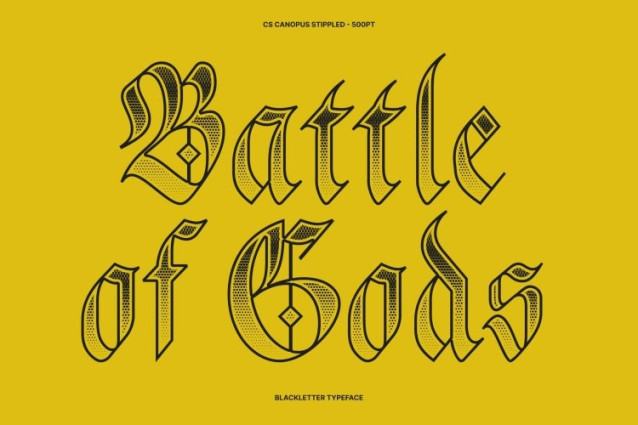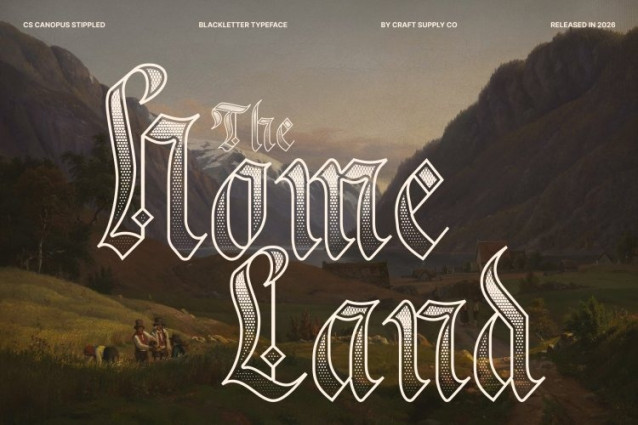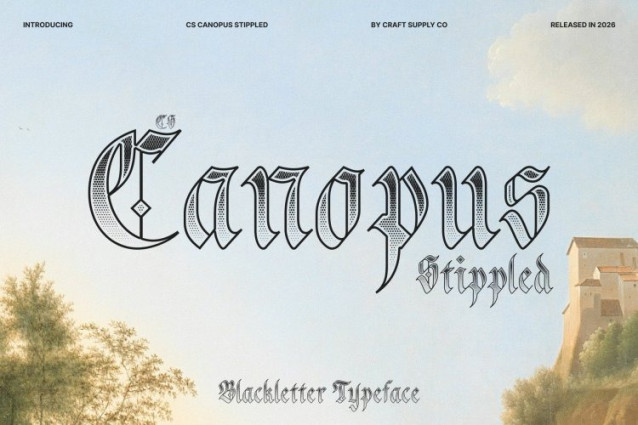
CS Canopus Stippled Font
CS Canopus Stippled Font – This is a display serif font inspired by the traditional Blackletter Old English style, reflecting the rich heritage of classic Gothic typography. Its bold strokes, sharp angles, and intricate letterforms convey a strong sense of formality and historical elegance. Enhanced with a stippled texture, the font gains subtle depth and an engraved appearance, adding a handcrafted character that reinforces its vintage authenticity.
Authority and Timeless Elegance
With its dramatic structure and ornate detailing, this font delivers a commanding typographic presence. The combination of bold Gothic forms and delicate dotwork texture enhances its authoritative feel while preserving the classic sophistication associated with traditional blackletter design. This balance makes the font both visually striking and culturally resonant.
Textured Craftsmanship with Historic Character
The stippled effect introduces a fine dotted pattern inspired by traditional engraving and stippling techniques. This detail enriches the letterforms with visual depth and artistic nuance, giving the typography a refined, historic atmosphere while maintaining clarity and strength.
Perfect for Formal and Heritage-Inspired Design
This is ideal for projects that require a sense of prestige, tradition, and historical elegance. It works beautifully for formal invitations, book titles, cultural branding, certificates, vintage posters, and editorial headlines. With its Old English roots and textured detailing, the font brings a distinguished and timeless presence to any design.